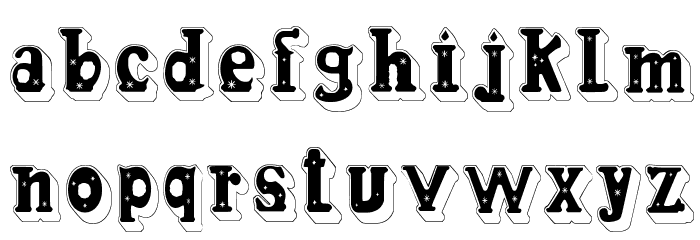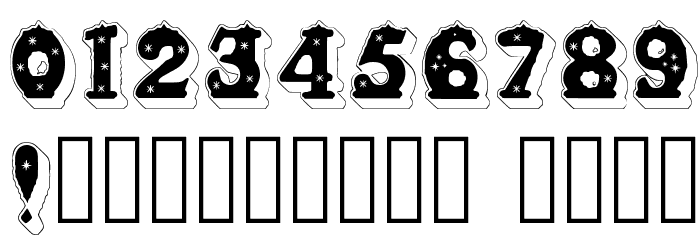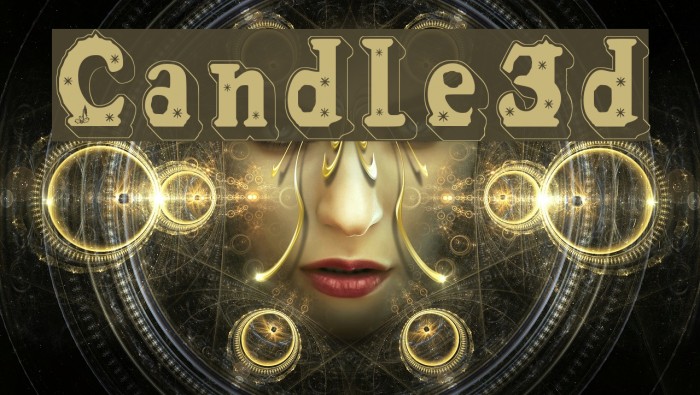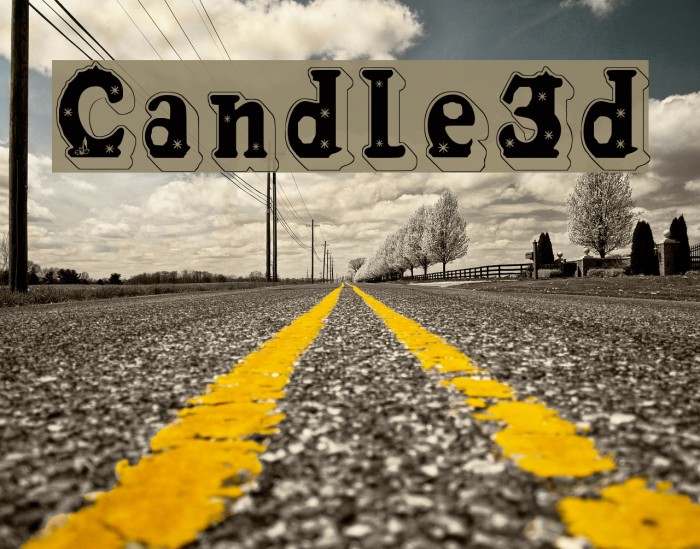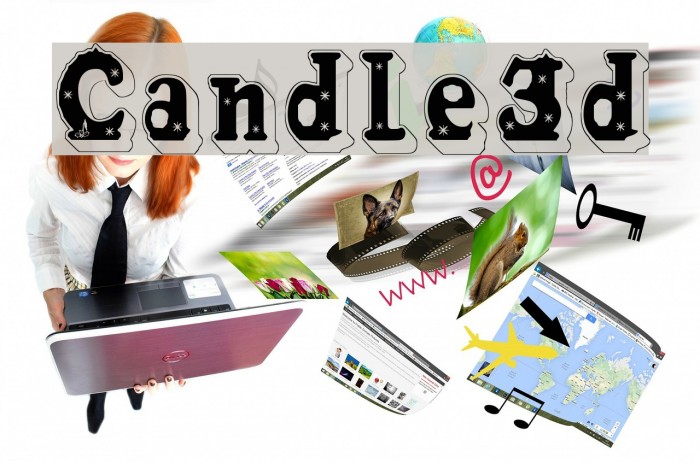
Candle3d Font
This font features a playful and decorative style, characterized by its bold, three-dimensional appearance. Each character is adorned with star and circle patterns, giving it a whimsical and festive look. The letters have a shadow effect that enhances the 3D illusion, making them stand out prominently. The font maintains a consistent thickness throughout, with rounded edges that soften its overall appearance. It is highly decorative, making it suitable for eye-catching designs and creative projects.
A playful, 3D decorative font with star patterns and shadow effects.
- Proposed Projects: Ideal for party invitations, festive banners, children's book covers, and playful branding materials.